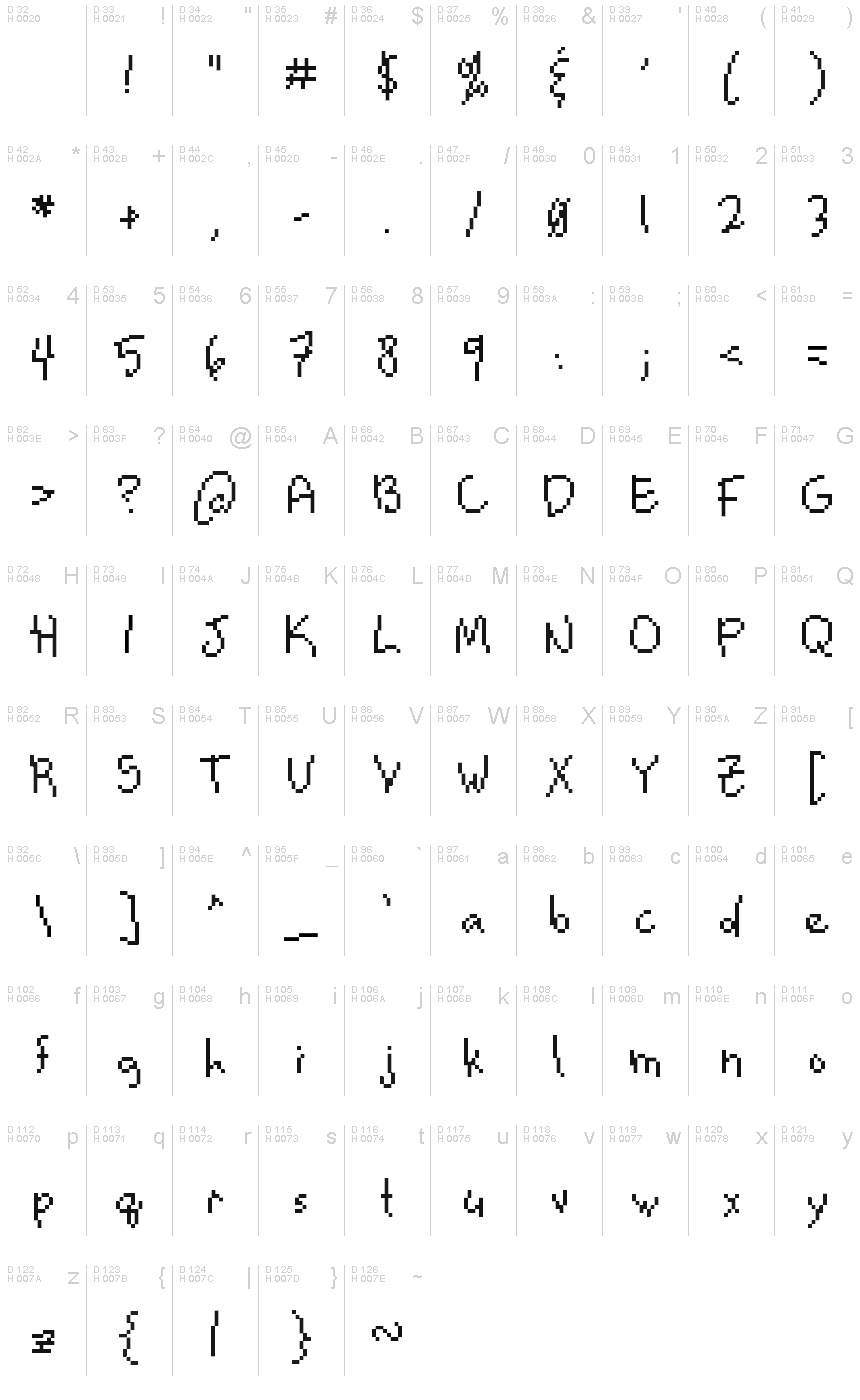
Notepen
Notepen by Jeti is a captivating pixel-art font that breathes life into digital design. Its uniquely crafted letters, including accented characters, create a charming and natural aesthetic. The pixelated style evokes a retro-inspired vibe, perfect for projects seeking a nostalgic or vintage feel.
This font's distinct personality shines through in its uneven, handwritten-like strokes, adding a touch of organic warmth to otherwise rigid digital environments. Notepen's versatility makes it an excellent choice for a variety of applications, from branding and packaging to editorial layouts and social media graphics.